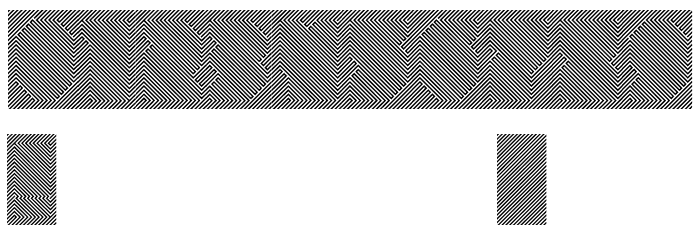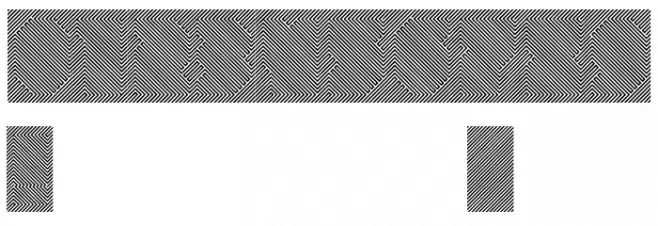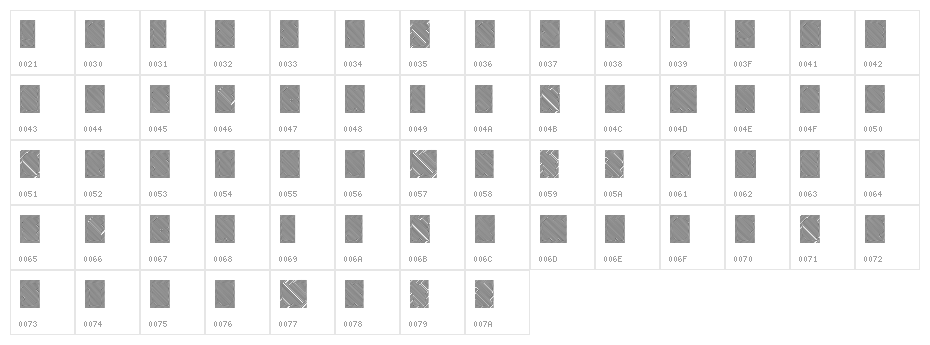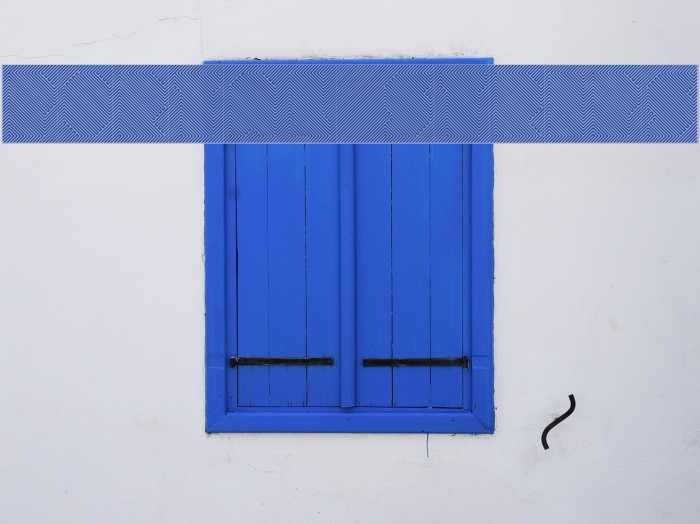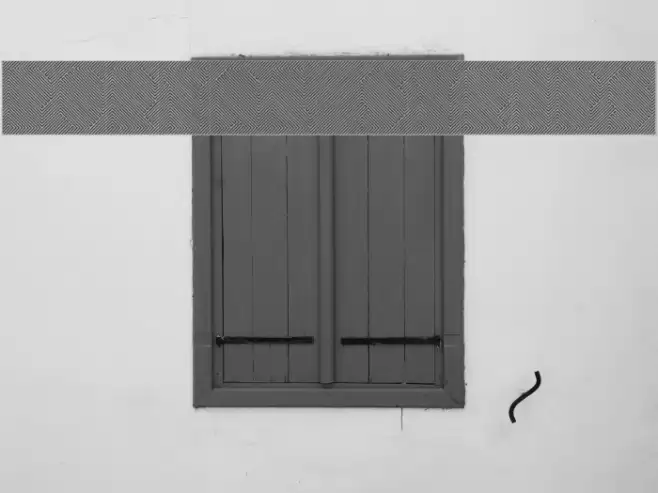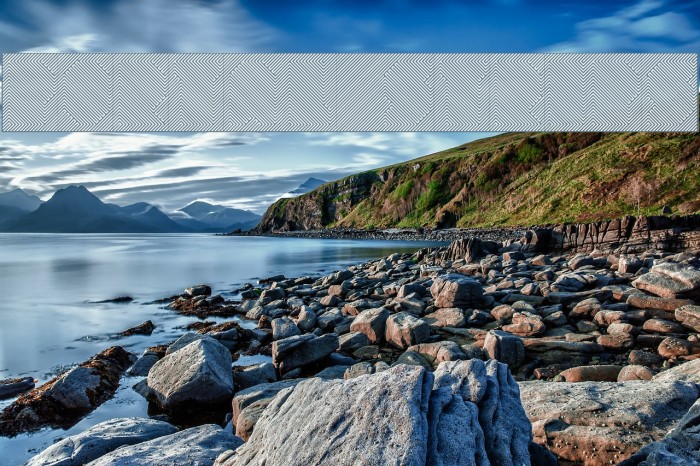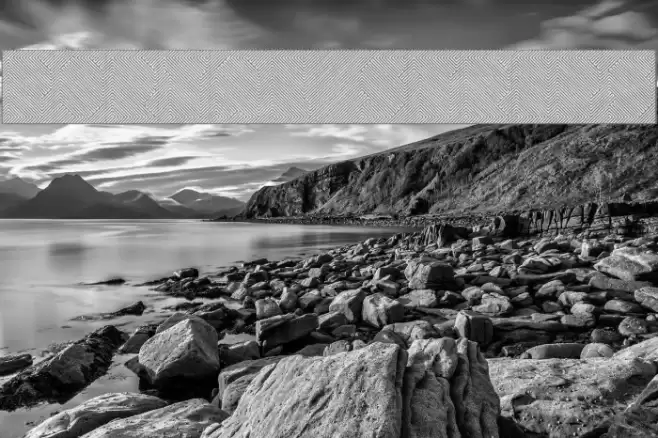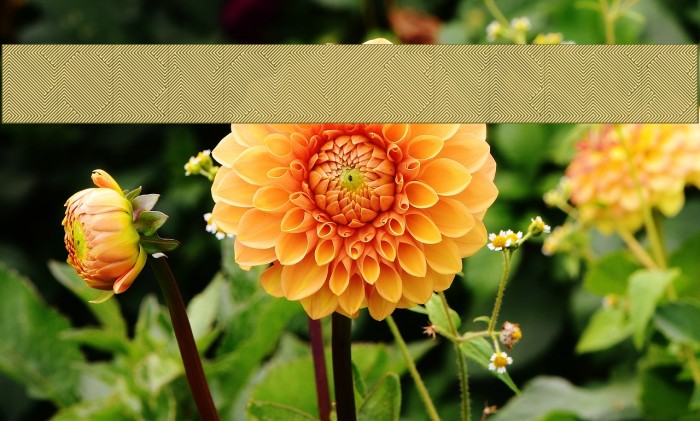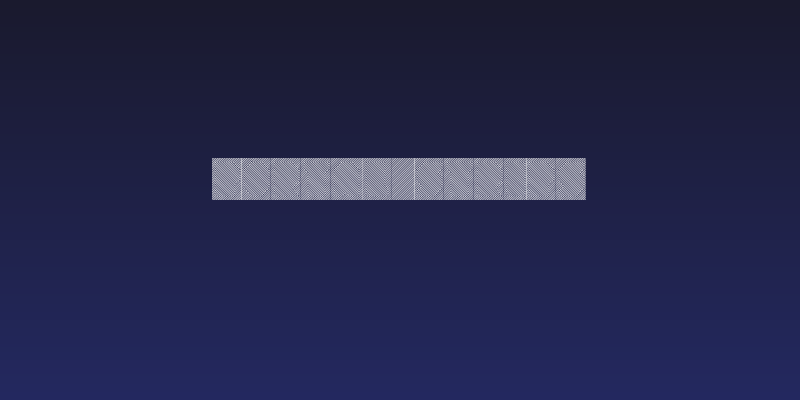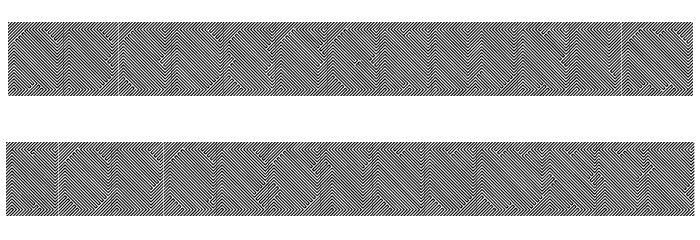
Portal Strips Font
Portal Strips Description
This design features a series of intricate, repeating geometric patterns that create a visually striking effect. The patterns consist of tightly interwoven lines forming zigzag and chevron shapes, resulting in a mesmerizing optical illusion. The monochromatic color scheme enhances the complexity and depth of the design, making it suitable for modern and contemporary applications. The repetitive nature of the patterns suggests a sense of continuity and flow, ideal for creating dynamic visual interest in various settings.
| Use Case | Art installations, Wallpaper, Textiles |
| Proposed Projects | Ideal for modern art installations, wallpaper designs, textile patterns, and digital backgrounds. |